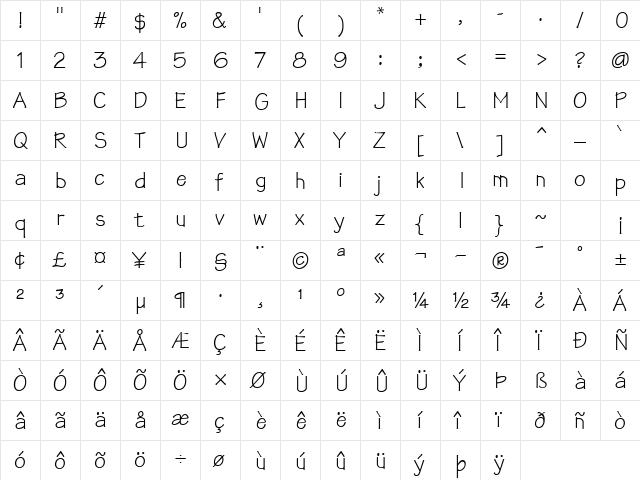
MathSoftText Regular
Design Context for MathSoftText Typeface
MathSoftText offers clean, dependable letterforms without strong stylistic allegiance, making it a practical choice for designers who need flexibility.
Pro Tip: Pair MathSoftText with a font of contrasting weight or personality to build a more expressive typographic hierarchy.